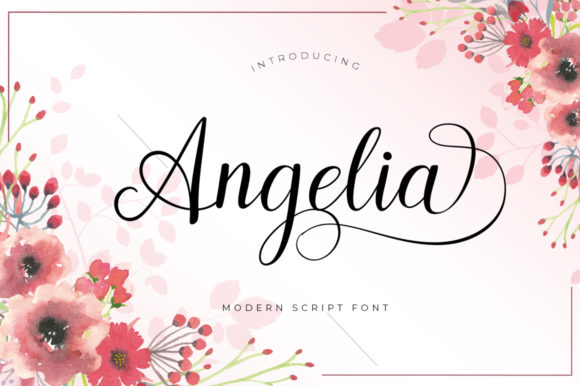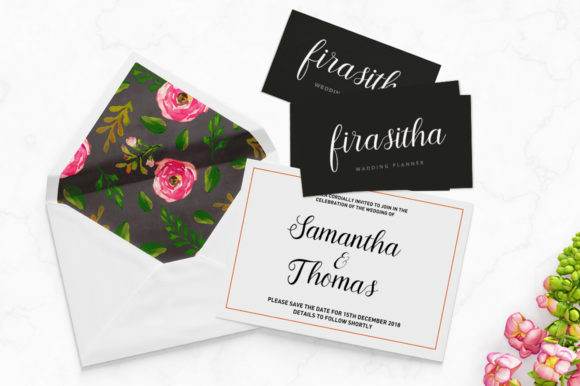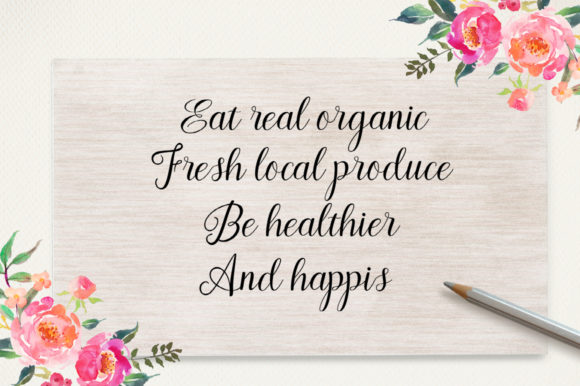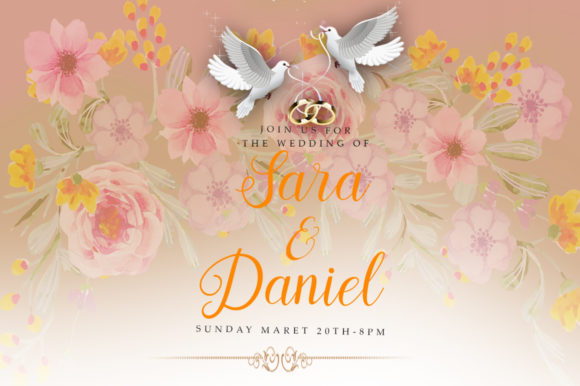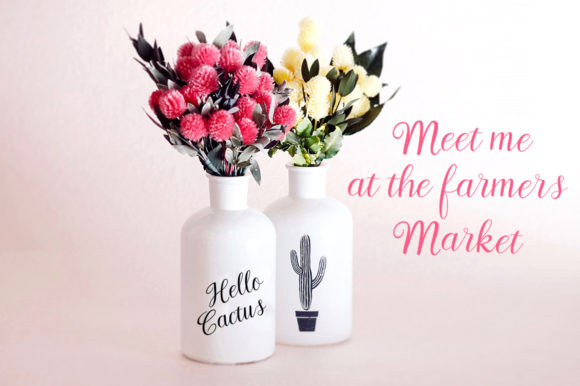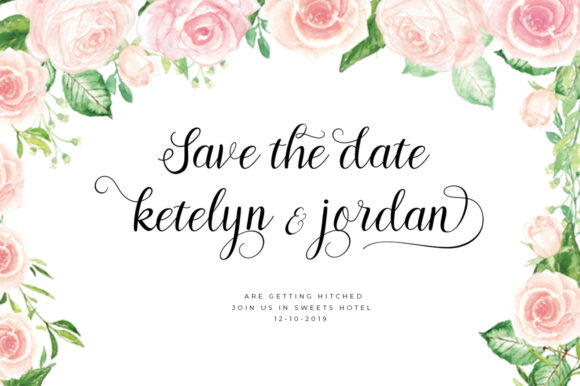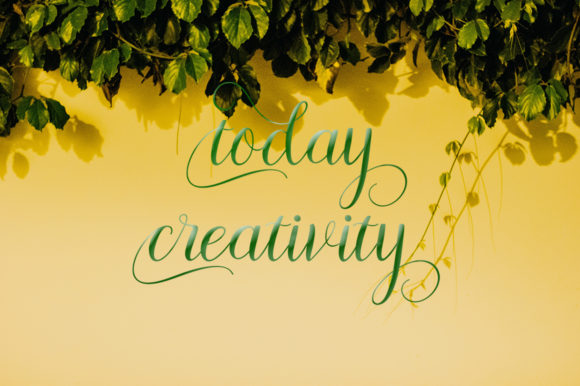
Angelia Script Font
About Angelia Script Font
The Angelia is a modern script font. It has an irregular baseline and a trendy and feminine style.
It can be used for wedding invitations, thank you cards, quotes, greeting cards, logos, business cards and more.